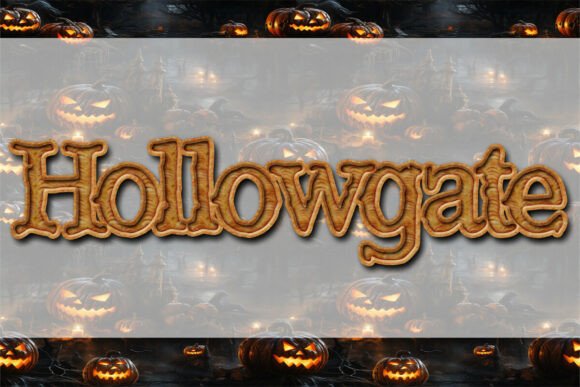
Unleashing Creativity with the Hollowgate Font
Have you ever been stuck in the middle of a creative project, desperately searching for that perfect font to bring your vision to life? I know I have. There’s nothing quite like the feeling of finally finding that elusive design element that takes your project from good to great. For me, that moment came when I discovered the Hollowgate Font.
This game-changing font has been a trusted companion for designers and creatives everywhere, offering a unique blend of modern style and timeless elegance. With its compatibility with SVG files and cutting-edge crafting platforms like Cricut, the possibilities are endless. Whether you’re a seasoned pro or just starting out, the Hollowgate Font is a valuable design resource that’s sure to elevate your creative projects.
Key Features of Hollowgate Font
- High-quality, unique font design ideal for creative projects, offering a distinctive touch to any visual content.
Honest Review: Hollowgate Font
I recently stumbled upon the Hollowgate Font, and I must say it’s been a game-changer for my creative projects. As a designer, I’m always on the lookout for high-quality fonts that can elevate my designs. The Hollowgate Font is a free download, which is a huge plus for me. I’ve been able to use it in all sorts of projects, from logos to social media graphics.
Here’s what I like about the Hollowgate Font: ✨
- Unique and quirky design that adds a touch of personality to my designs
- High quality and crisp typography that looks great even at small sizes
- Transparent background makes it easy to customize and layer with other design elements
That being said, there are a few limitations to the Hollowgate Font: ⚠️
- May not be suitable for formal or professional projects, as it has a more casual and playful feel
- May require some tweaking to get the right look and feel in certain design contexts
Overall, I’m really impressed with the Hollowgate Font. It’s a great addition to any designer’s toolkit, and I’m excited to see how it can help take my creative projects to the next level. If you’re looking for a high-quality, free download font that can add some personality to your designs, I highly recommend giving the Hollowgate Font a try.
The Hollowgate Font is a high-quality design resource perfect for creative projects. It offers a unique aesthetic and can be easily customized to suit your needs.
To get the most out of the Hollowgate Font, try using it with a transparent background to create a sense of depth and dimension. Experiment with different font sizes and styles to add visual interest to your designs.
The Hollowgate Font is perfect for a variety of creative projects, including graphics, logos, and typography-based designs. Its unique aesthetic makes it ideal for use in branding and marketing materials.